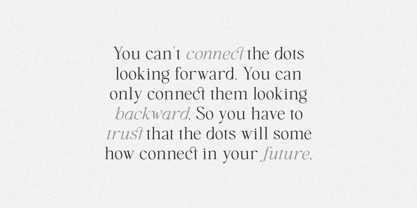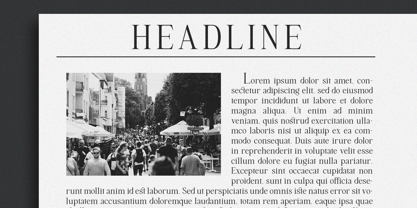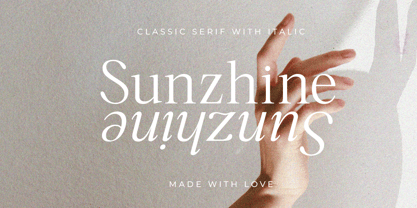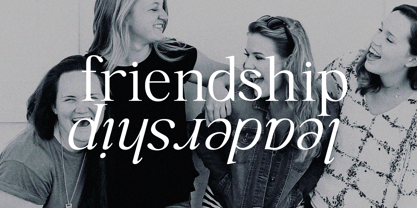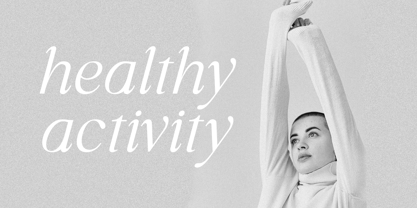
Sunzhine Serif
The Sunzhine Serif Font Family was designed by Fahmi Iman and published by Spectype. Sunzhine Serif contains 2 styles and family package options. More about this family
helo this is my font with the name Sunzhine Serif which has a classic and elegant style and uses regular and italic style in the letters. This font is suitable for application in various media, be it print or digital.